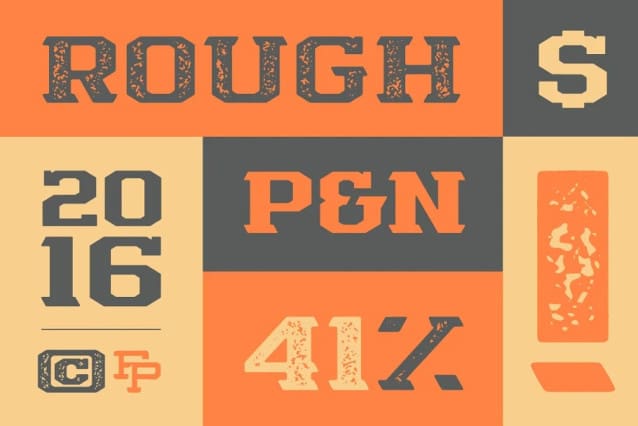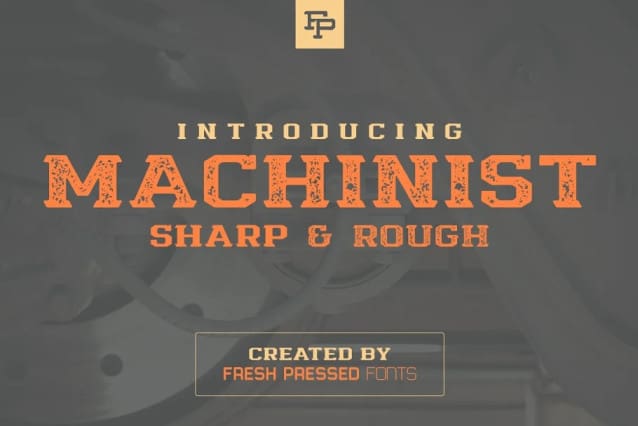
Machinist Display Font
Machinist Display Font, comes in 2 different styles, Sharp and Rough. The sharp weight gives a very strong and sturdy feel that can stand up well even at very small type sizes. Rough is a more vintage look inspired by the wear and tear that machines develop after years of use. Each weight can be used in many different ways to boost your designs.
With uppercase, international language support, and plenty of supporting glyphs, Machinist Display can be used in a variety of different ways in your designs from headlines to supporting text.